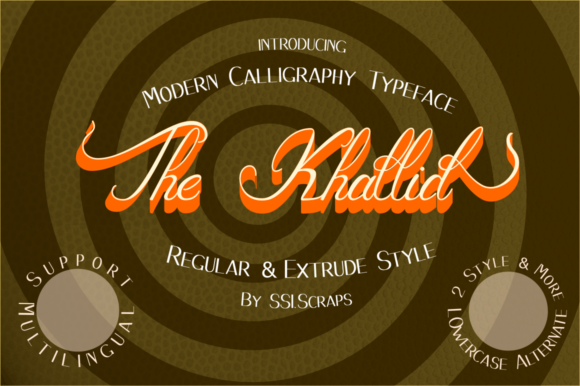
Introducing The Khallid Font, a stunning script typeface that will ignite your designs with elegance and charm. This masterpiece, meticulously crafted by Syukursetiyadi, is a versatile font that knows no bounds. Whether you're catering to the delicate sensibilities of a woman's touch or the bold strokes of a man's vision, The Khallid Font seamlessly adapts, elevating your creations to new heights.
With its two exquisite styles, The Khallid Font unveils a world of possibilities. Allow the graceful curves and sweeping lines of Style One to enchant your designs with a touch of timeless sophistication. Then, embrace the playful charm of Style Two, where each letter dances with a lively energy, ready to bring a smile to every reader's face.
More than just a font, The Khallid Font is an invitation to explore the depths of your creativity. Let it inspire you to craft logos that command attention, social media posts that captivate, and branding materials that leave an unforgettable impression. Its versatility extends beyond gender boundaries, making it the perfect choice for a wide range of projects, from delicate wedding invitations to powerful marketing campaigns.
Indulge in the beauty of The Khallid Font and witness the transformation of your designs. Its enchanting presence will elevate your creations, leaving a lasting impact on everyone who encounters them. Embrace the power of this modern calligraphy typeface and unlock a world of endless creative possibilities.